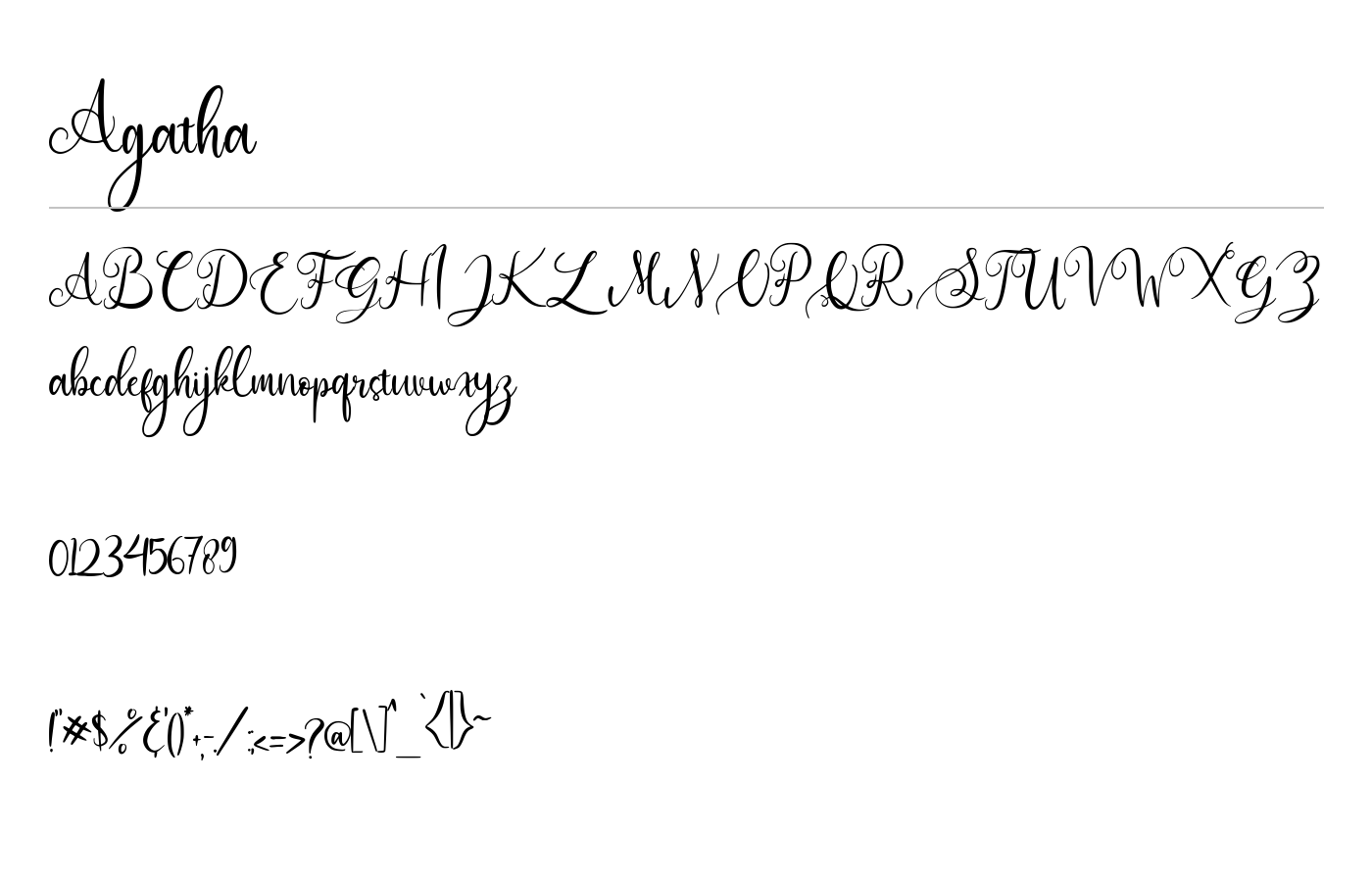
Agatha is a delicate and elegant script font featuring flowing, hand-drawn letterforms with graceful swashes and curls that give it a refined, feminine touch. Its thin strokes and tall x-height create a light, airy feel, making it perfect for invitations, branding, and designs that seek a sophisticated yet personal style. This font works beautifully in headlines or decorative text where a sense of charm and elegance is desired.
Agatha Font
About Agatha Font